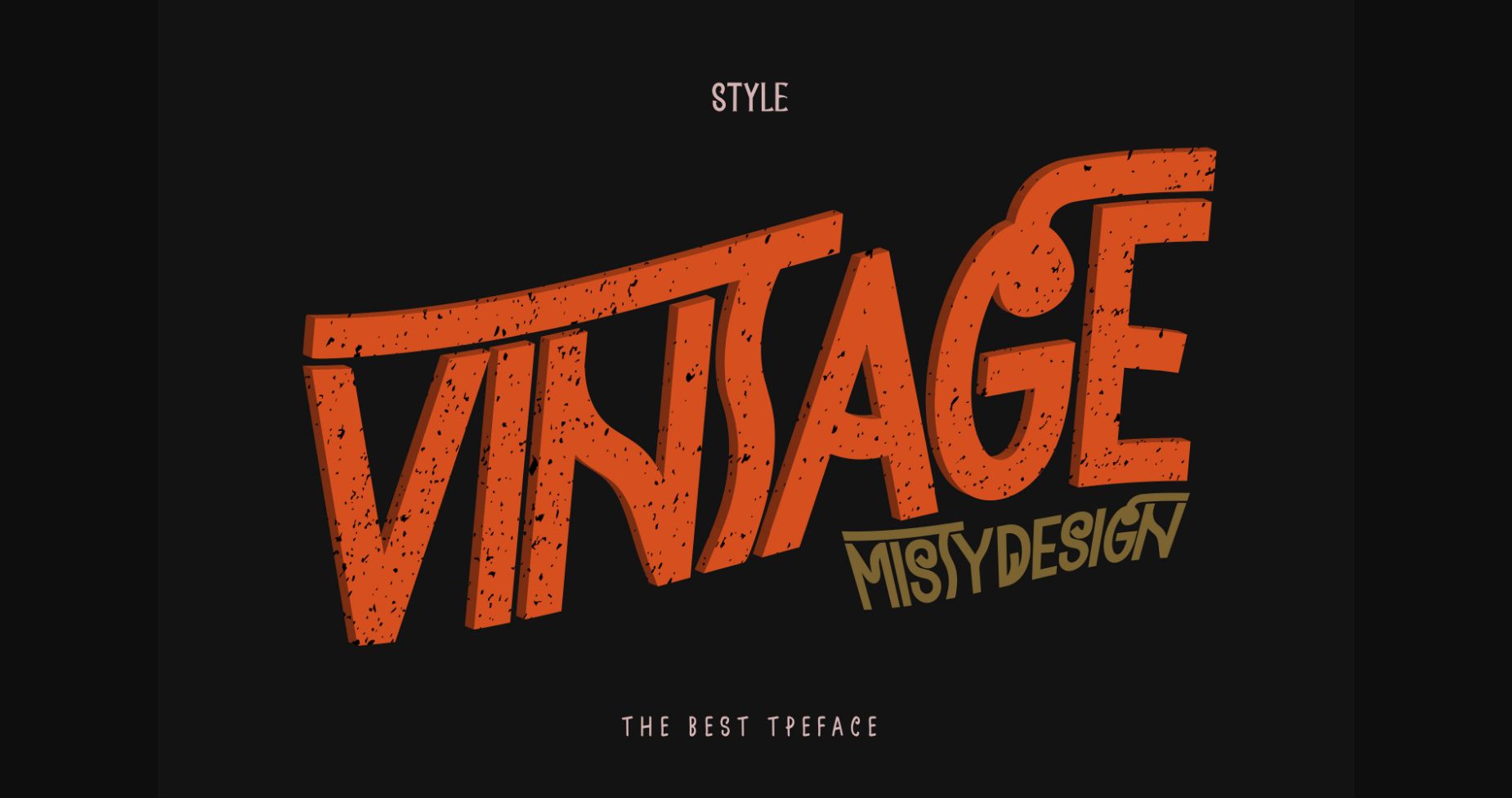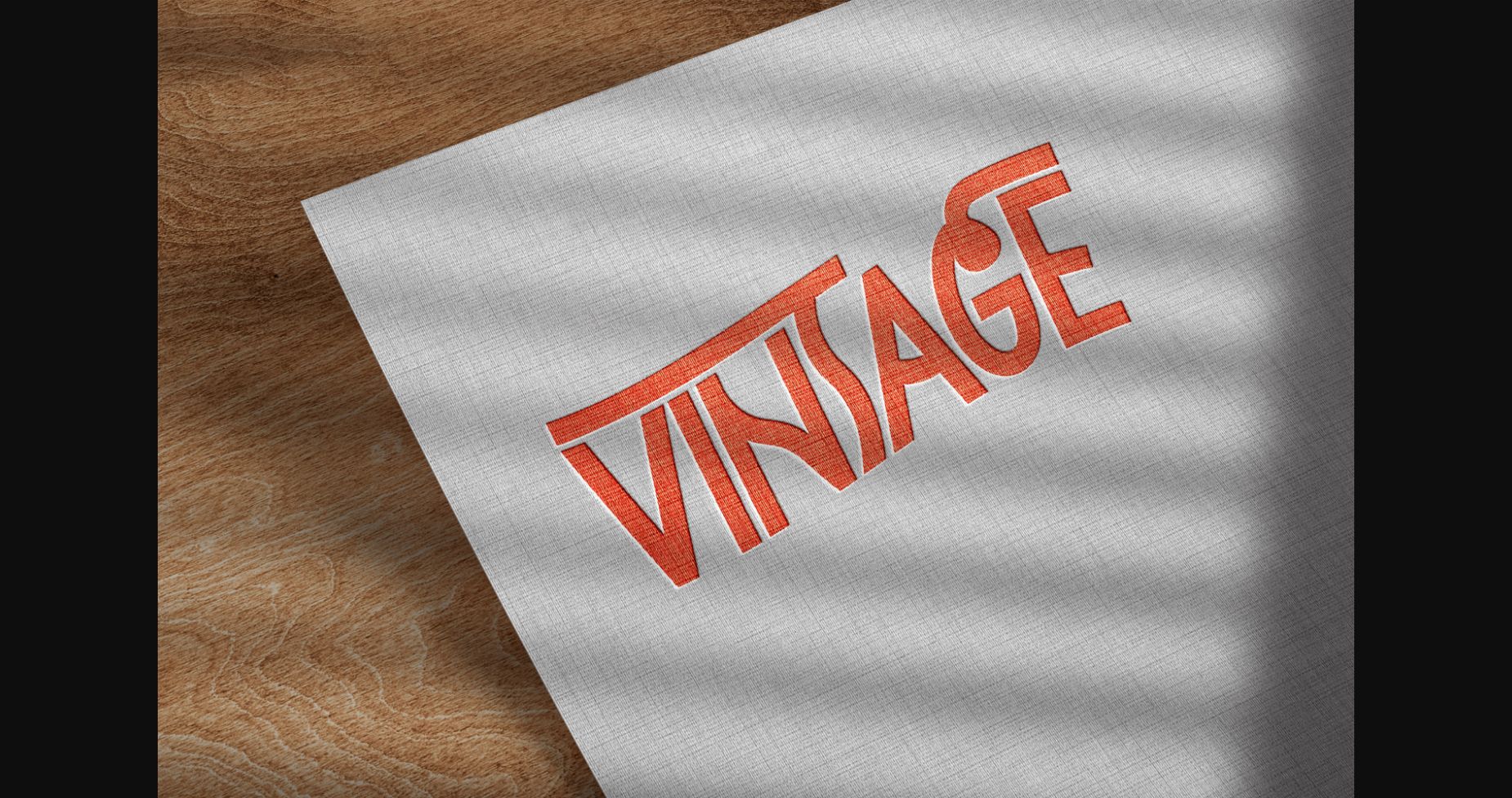
Vintage Font
About Vintage Font
Vintage is a fun and quirky all-caps sans serif font. Add it to your crafty ideas, and enjoy the results! It will look great on cards, promotional ads, social media posts, product packaging, and others.